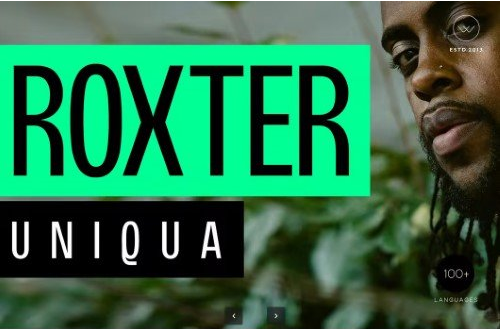
Roxter – Modern Display Typeface
Roxter is a unique display typeface designed for maximum impact. With its tall forms, tight spacing, and clean structure, Roxter brings strength and clarity to posters, branding, packaging, album covers, and modern digital layouts. With support for 100+ languages and 200+ glyphs, Roxter is ready for global use across both print and screen. A confident choice for designers who need sharp, modern, and space-efficient type.